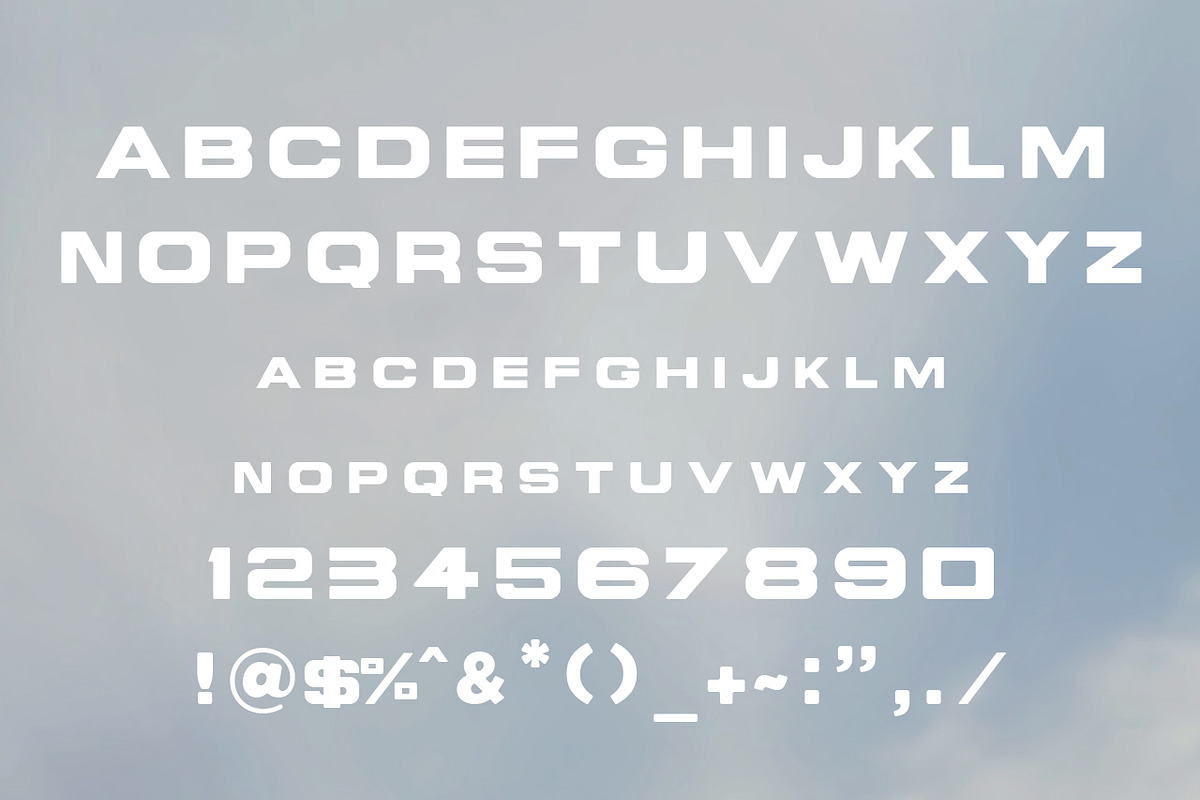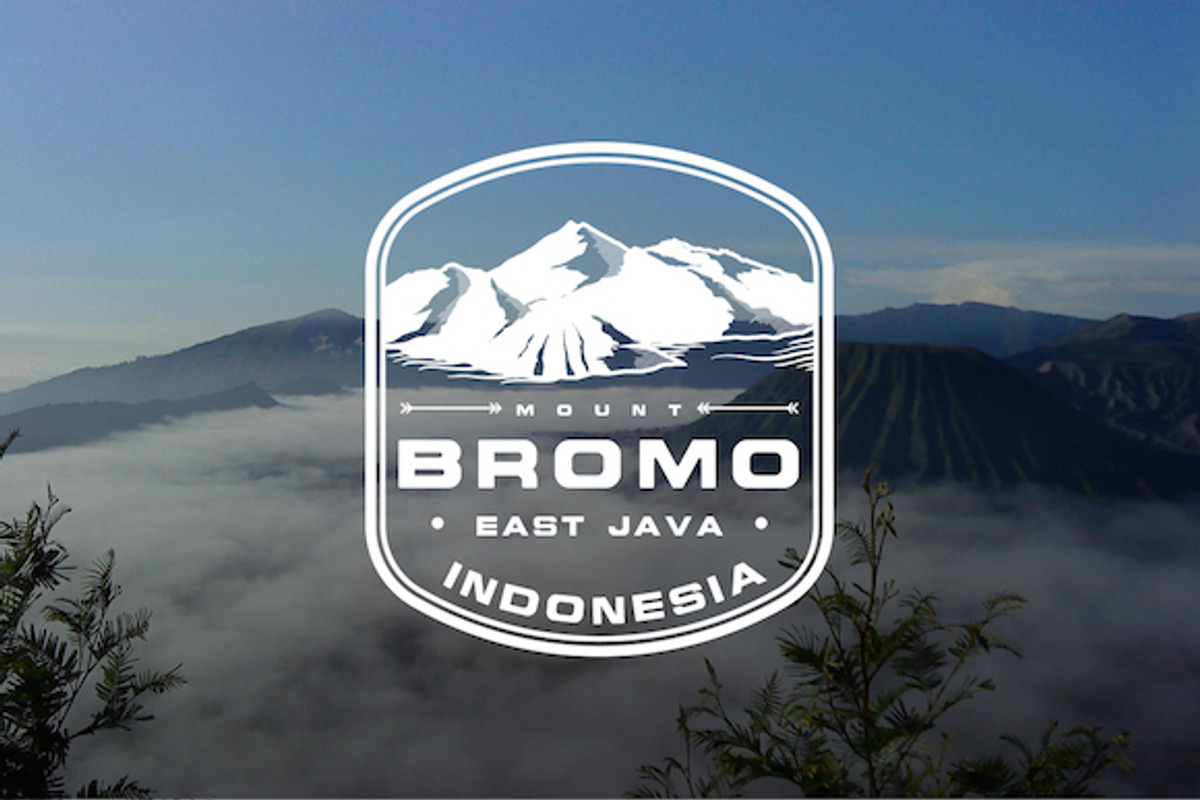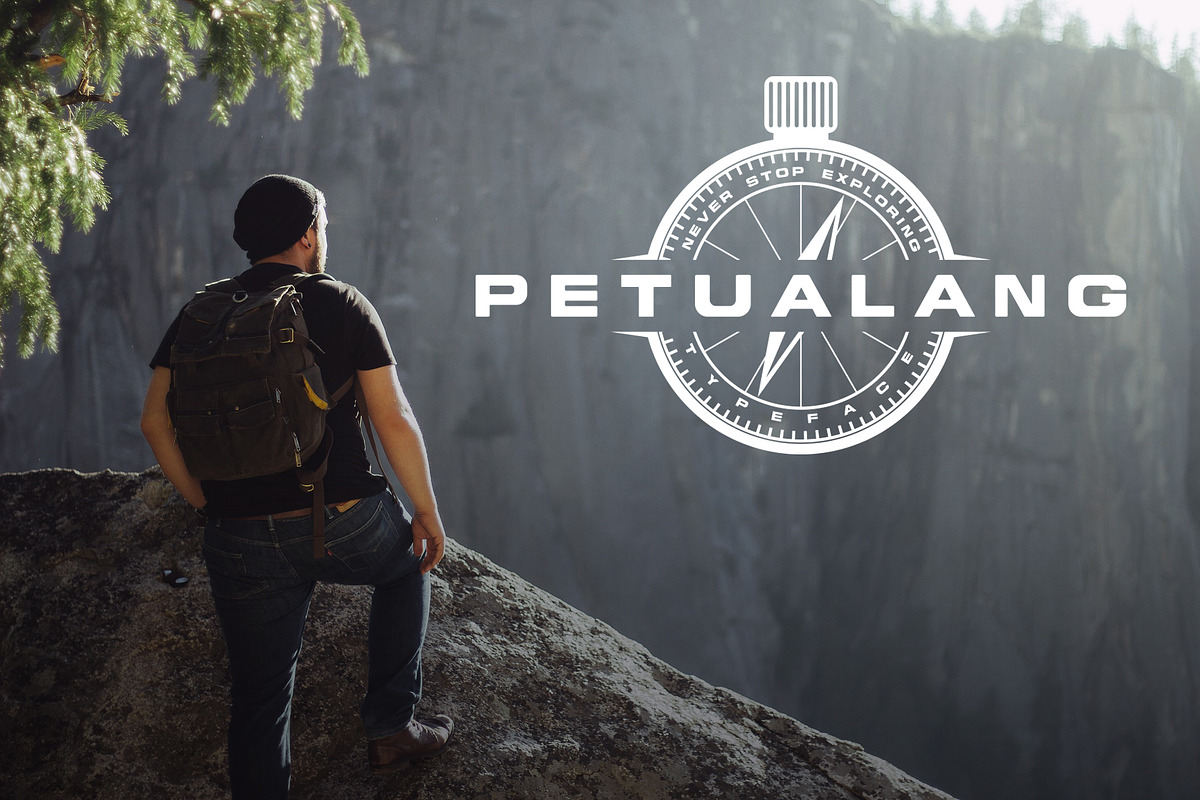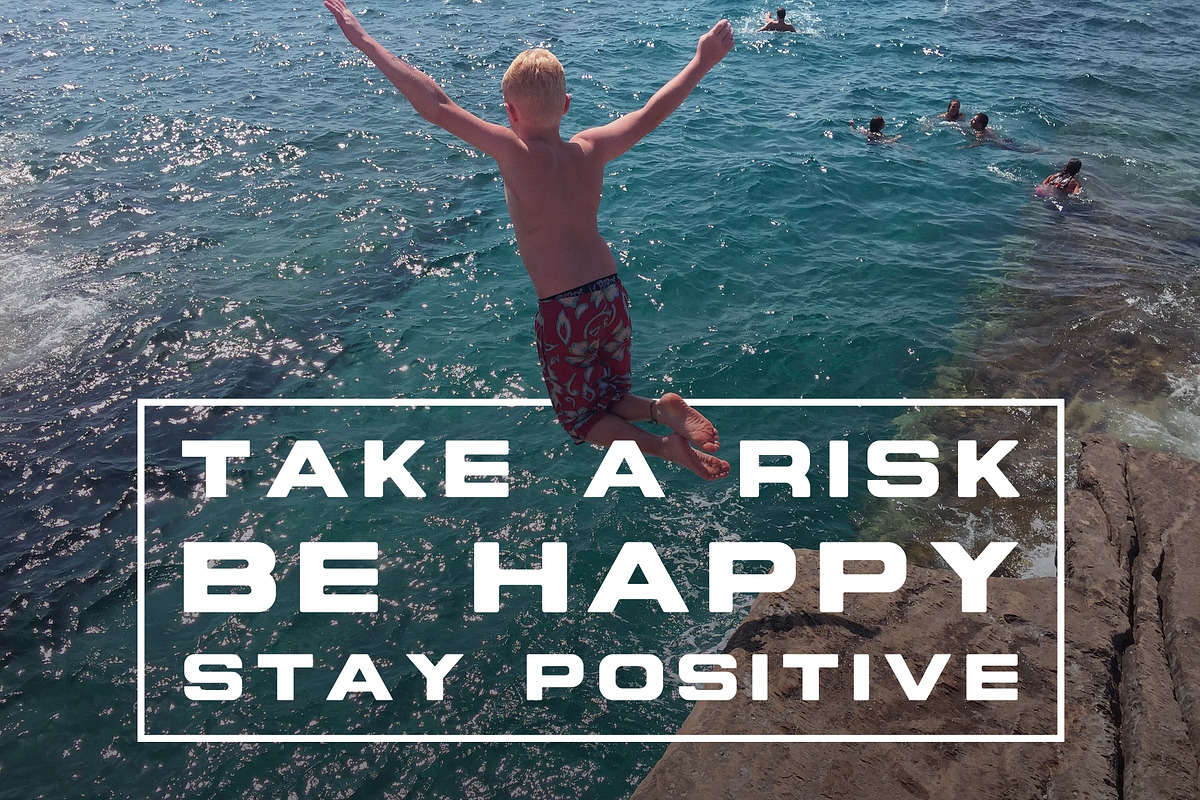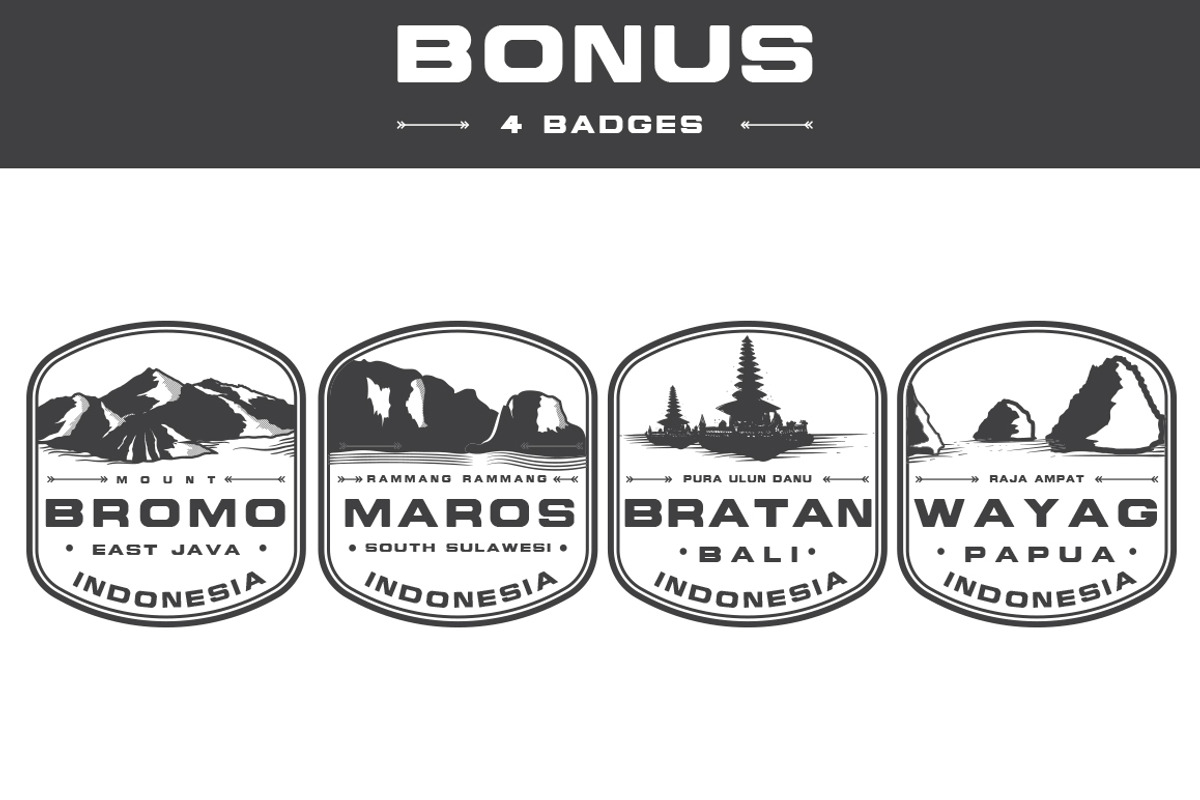
Petualang typeface
Petualang typeface by dreamwaves is a font selected for branding, posters, packaging, typography.
Why Petualang typeface is worth a look
Petualang typeface by dreamwaves fits naturally into Branding, posters, packaging, typography.